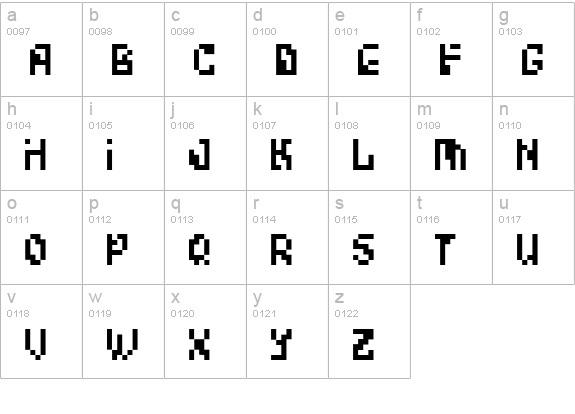
Bitwise Alpha Font Details
Bitwise Alpha font is a modern and sleek typeface that exudes a sense of sophistication and creativity. Its clean lines and sharp angles make it perfect for a wide range of design projects, from branding to digital art. The font's unique character set adds a touch of individuality to any text, making it stand out from the crowd. And the best part? Bitwise Alpha font is completely free to download at FontsMarket.com. This means you can access this high-quality font without any cost, making it a valuable addition to your design toolkit. Don't miss out on the opportunity to elevate your designs with Bitwise Alpha font, available for free download now!